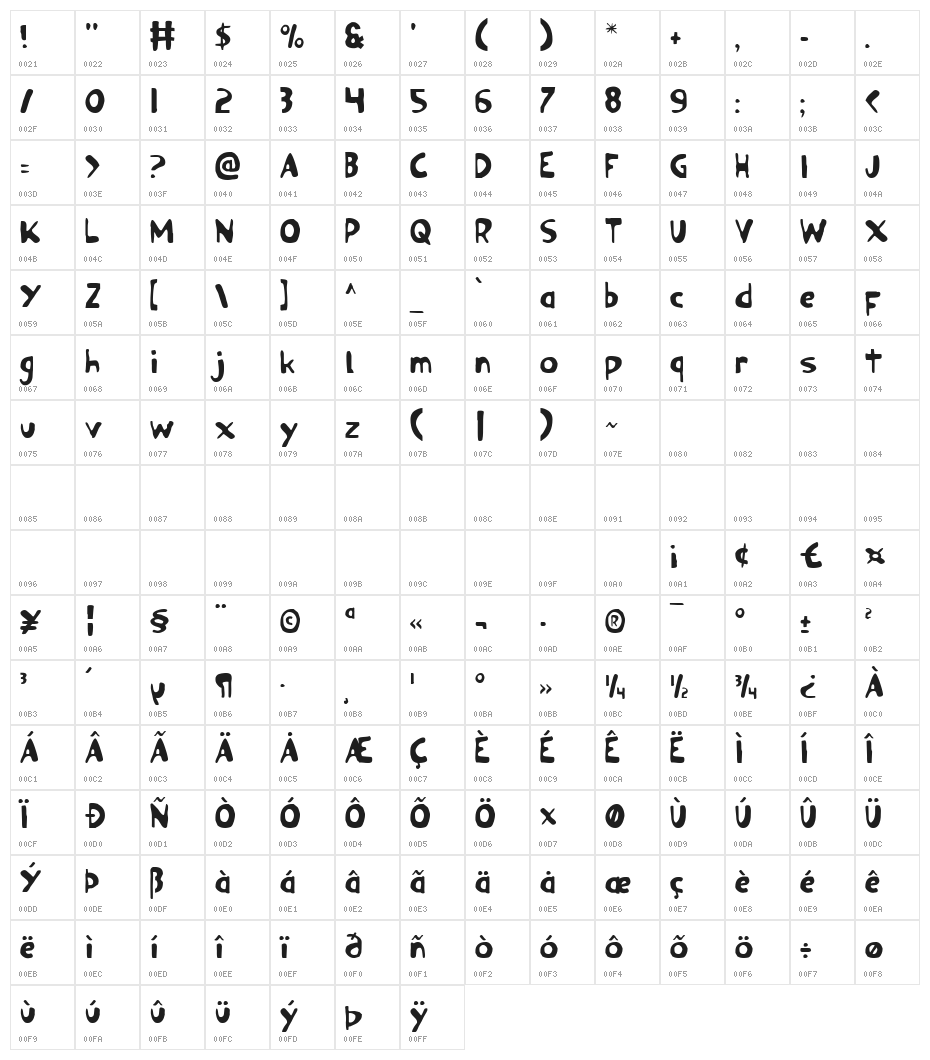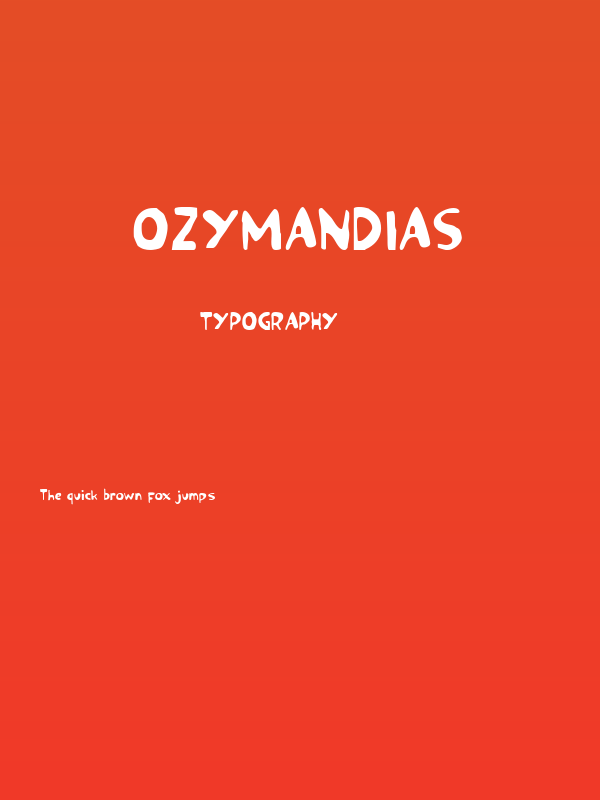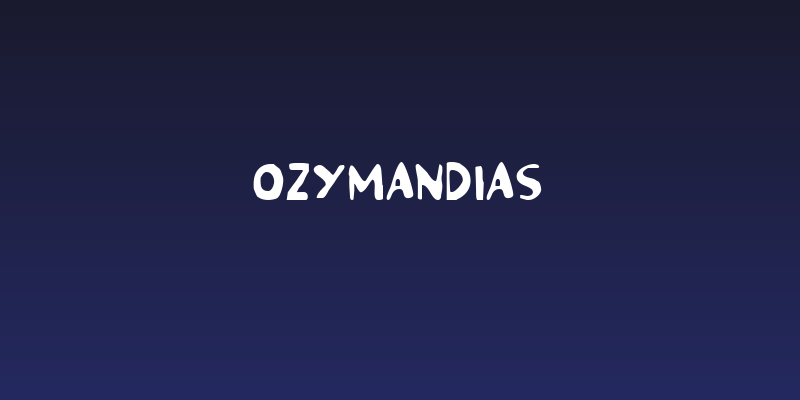
Ozymandias Font
Ozymandias Description
This font features a bold and playful design with a hand-drawn aesthetic. The characters are rounded and slightly irregular, giving them a whimsical and informal appearance. The uppercase and lowercase letters maintain a consistent style, with thick strokes and a slightly uneven baseline that adds to the casual feel. The numerals and special characters follow the same design principles, ensuring a cohesive look across all glyphs. This font is ideal for projects that require a fun and approachable vibe, such as children's books, posters, or creative branding.
| Proposed Projects | Ideal for children's books, playful posters, and creative branding. |